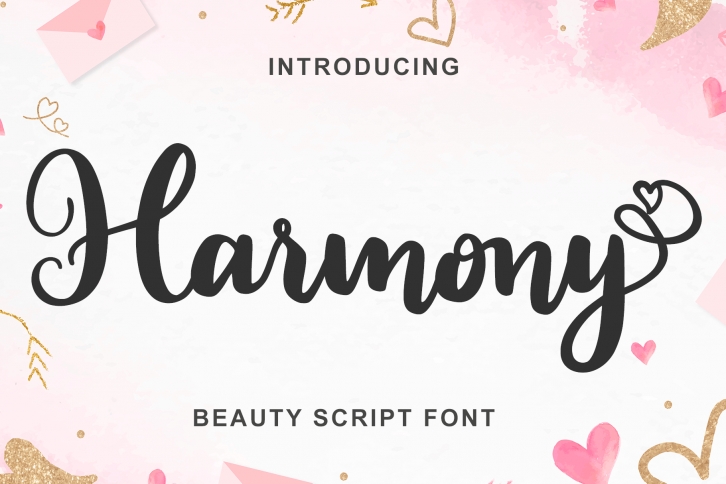
Harmony is a romantic and beautifully-rounded handwritten font that can make your designs look more attractive and natural. Use this typeface for love letters, wedding designs, Valentine’s Day gifts, etc. This font is PUA encoded, which means you can access all of the glyphs and swashes with ease!